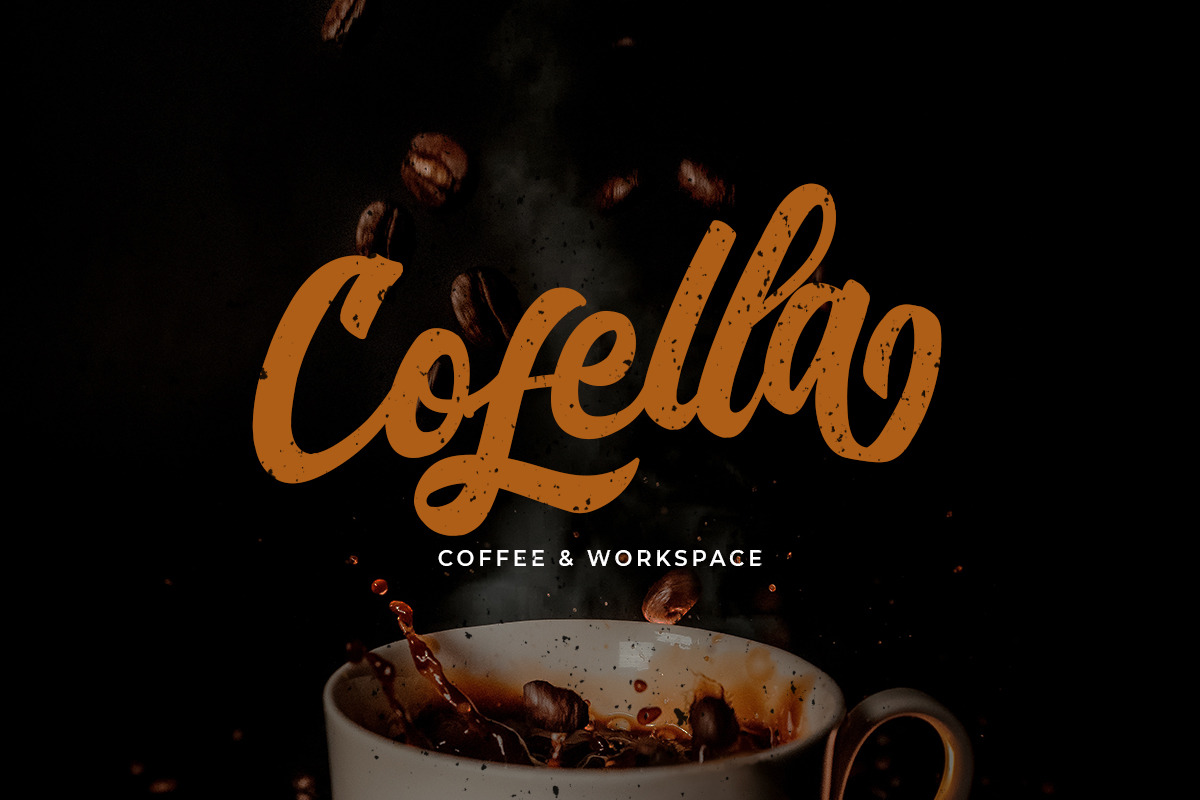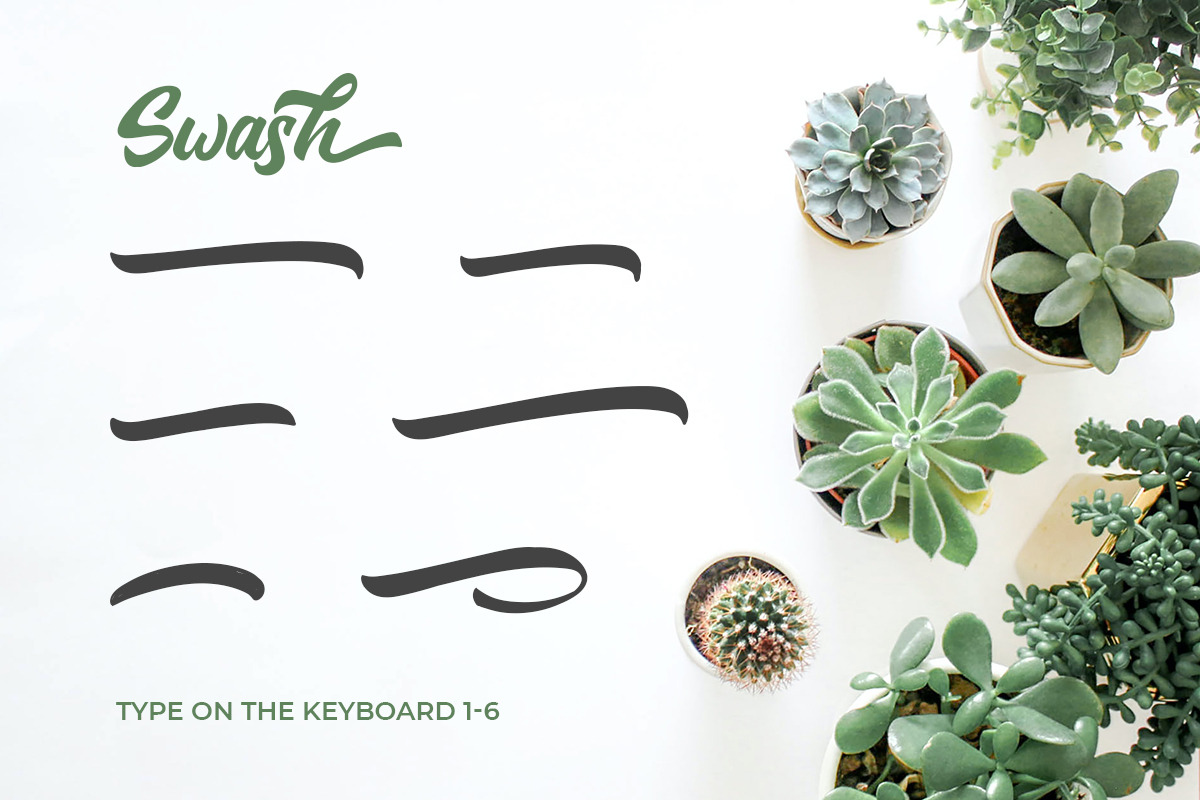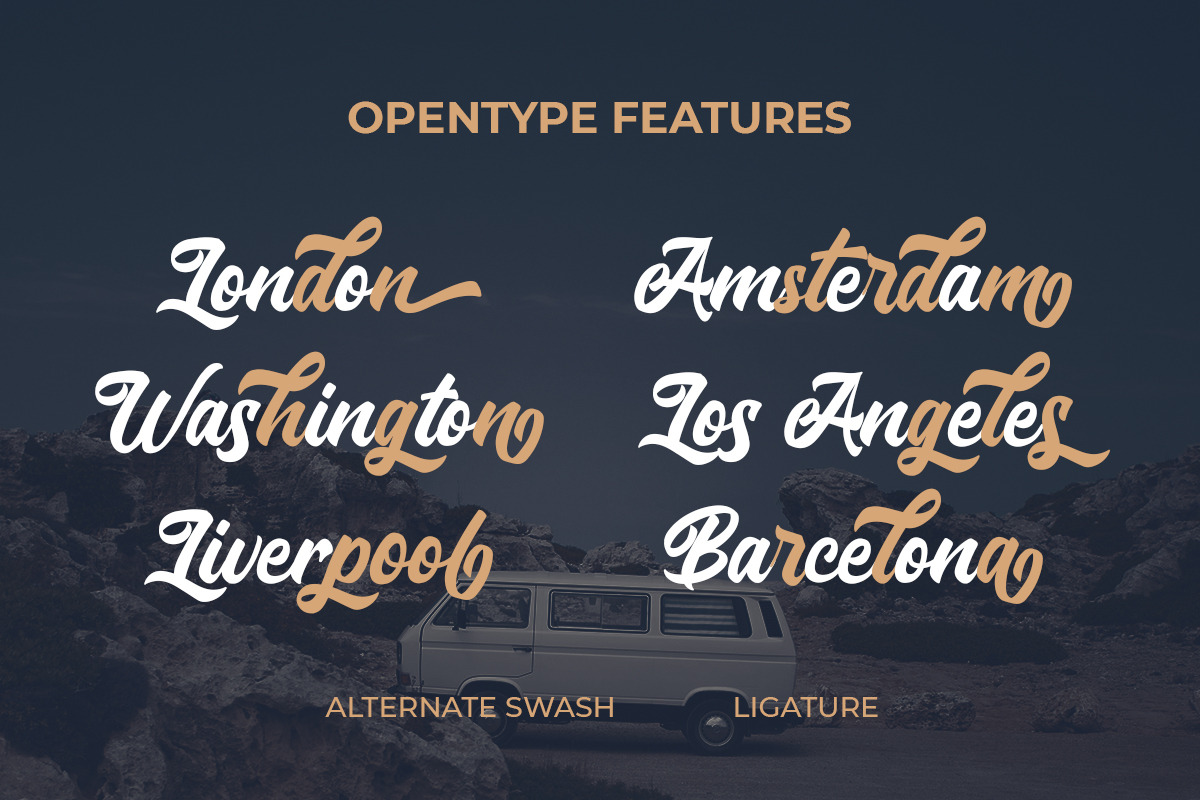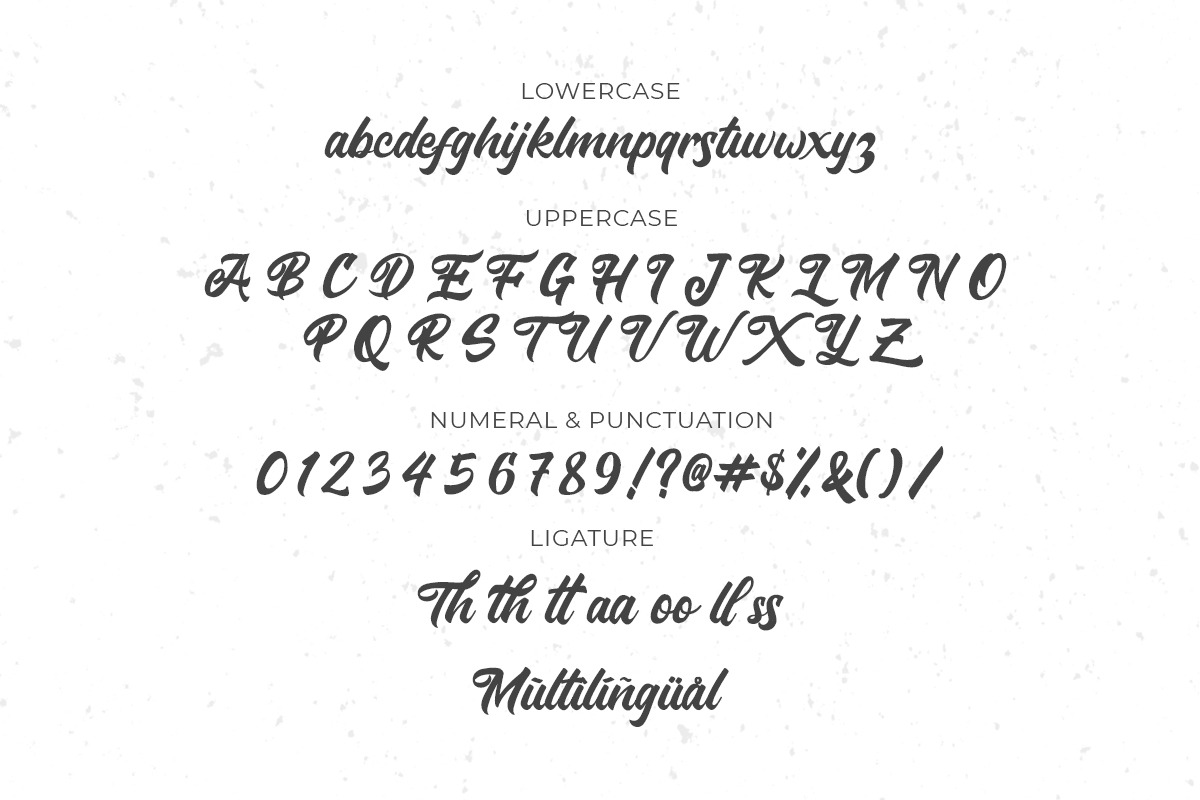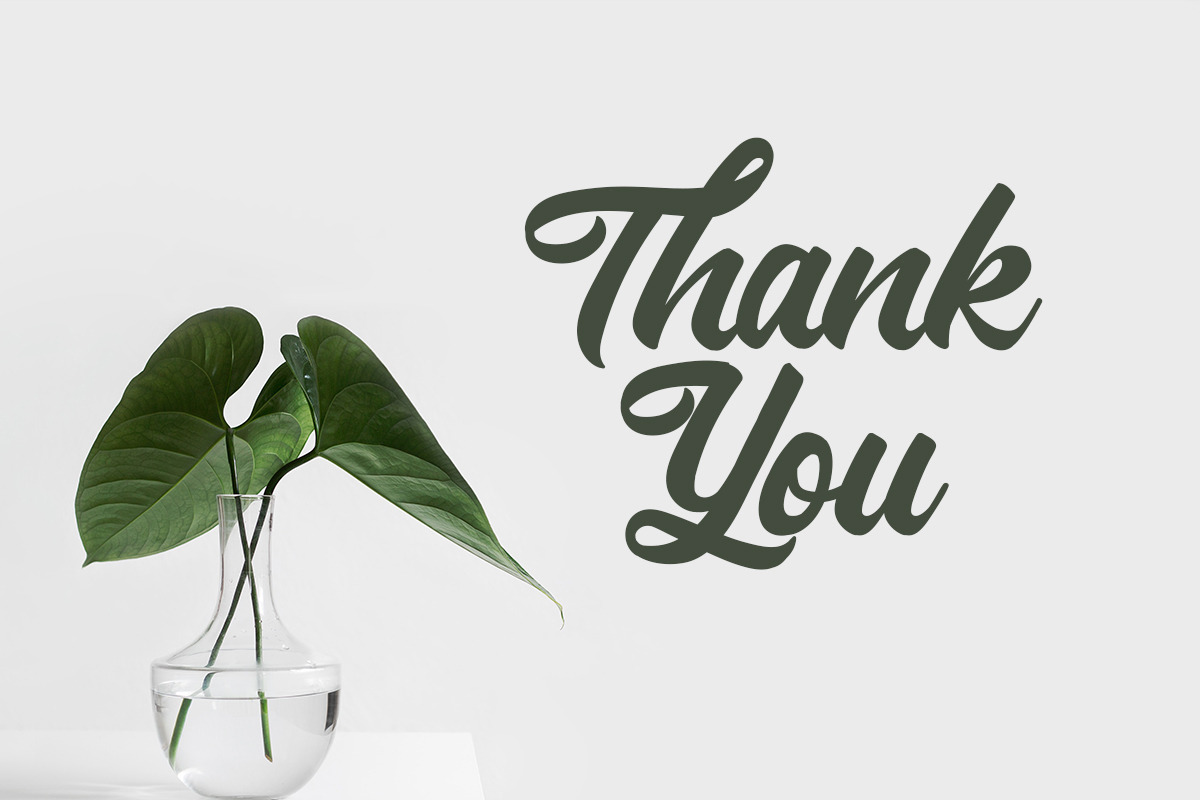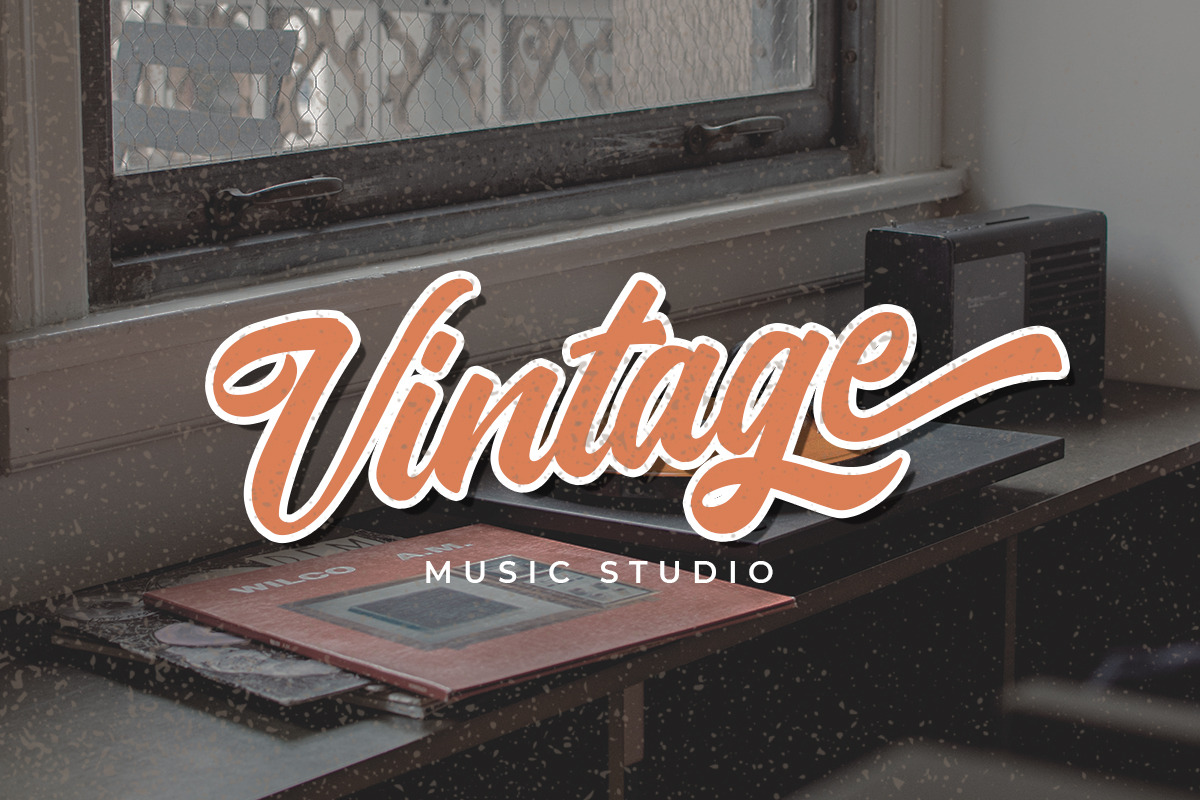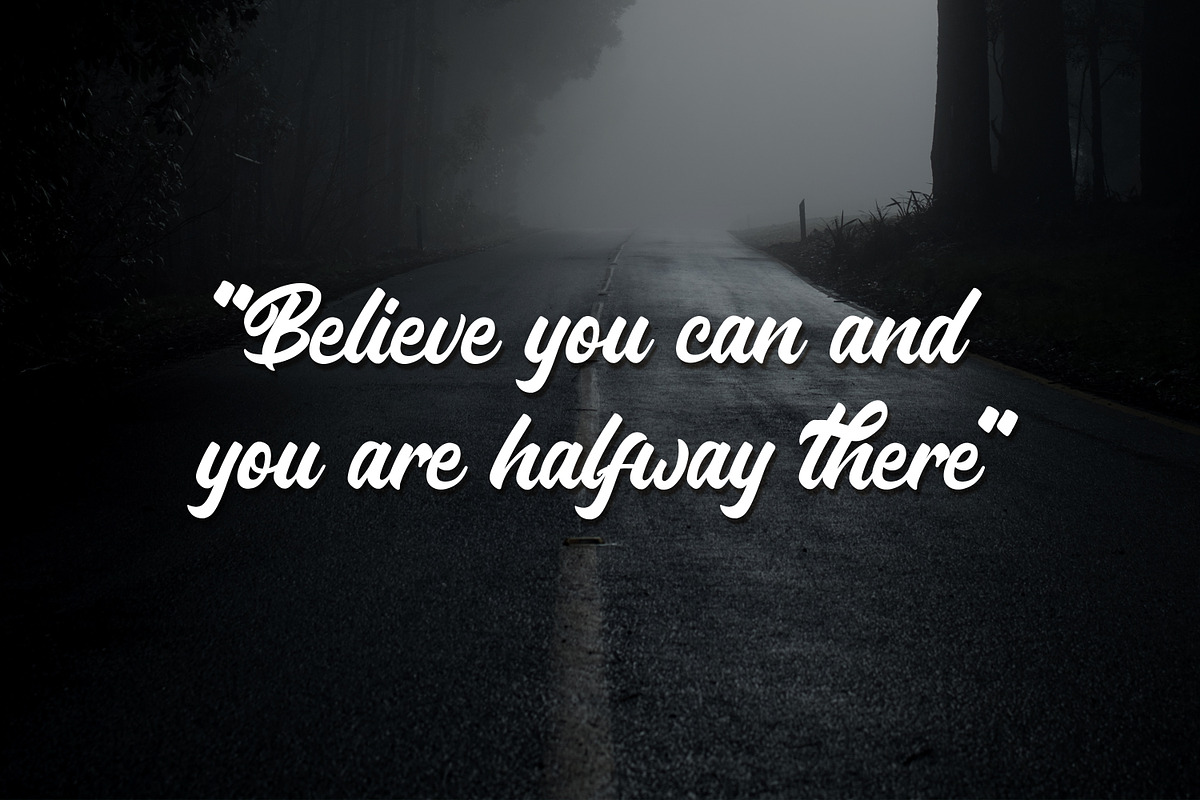
Bertuah Script Brush
Introducing, Bertuah Script. A natural handwriting script typeface. Very suitable to be used as a headline, Instagram post and stories, logos, magazines, books, greeting/wedding cards, packaging, fashion, makeup, stationery, novels, labels or any type of advertising purpose.
- alternates
- swashes